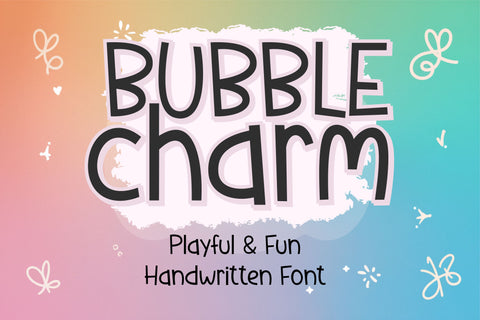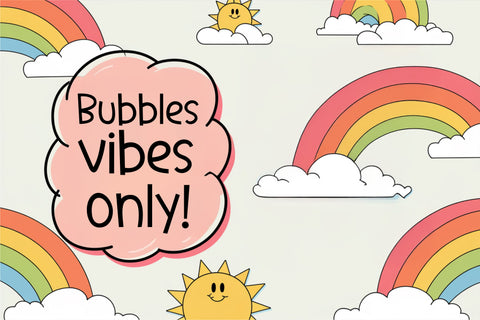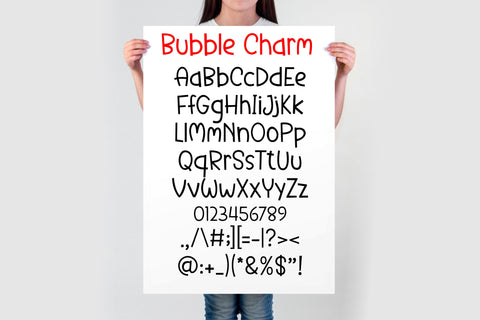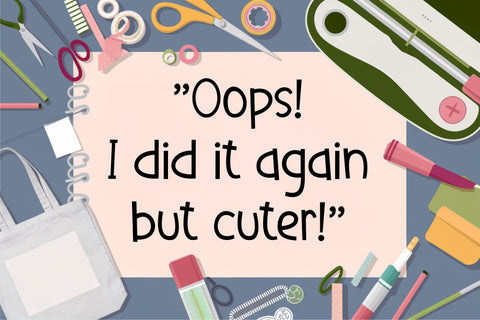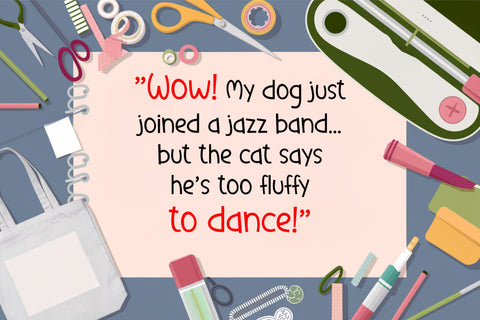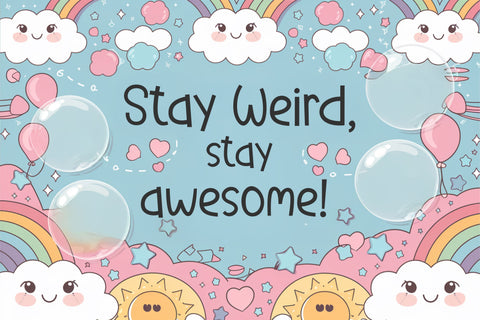
Bubble Charm Font - Playful Font, Kids Font, Cute Font
The Bubble Charm Font is a cute, bubbly, and playful handwritten typeface designed to bring a joyful and whimsical touch to your creative projects! With its fun, rounded letters and doodle-inspired style, this font is perfect for Cricut, Silhouette, Procreate, Canva, and all crafting enthusiasts who love making unique designs.
Whether you're creating stickers, t-shirts, greeting cards, social media posts, or classroom decor, Bubble Charm adds the perfect mix of fun and creativity to any project!
✔️ Full alphabet (A-Z), numbers, and symbols
✔️ Smooth, playful letters for a fun and friendly feel
Perfect For:
✔️ Cricut & Silhouette Projects
✔️ Procreate Lettering & Digital Designs
✔️ Stickers, Sublimation, & T-Shirts
✔️ Classroom & Teacher Decor
✔️ Planners, Journals, & Scrapbooking
✔️ Social Media Quotes & Branding